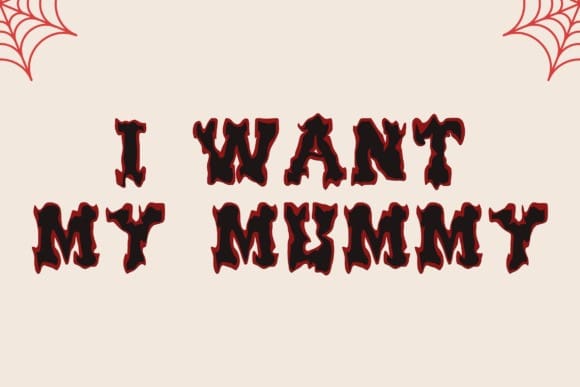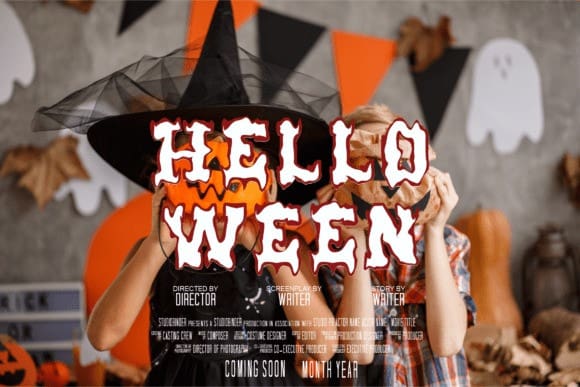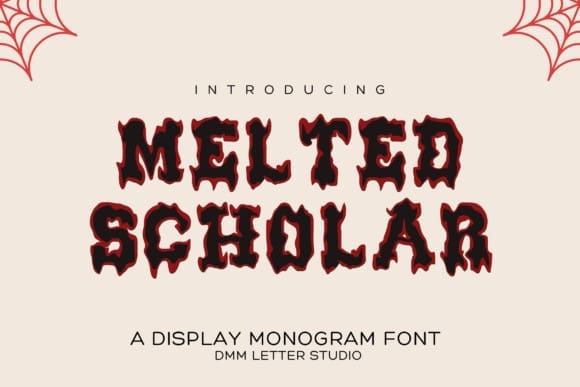
Melted Scholar Font
Melted Scholar Font is a bold and unique drip varsity font that blends the strong structure of collegiate lettering with a playful, melty twist. This one-of-a-kind typeface is made for designers who want to break the mold of traditional varsity fonts and inject some spooky, rebellious character into their projects. Whether you’re creating Halloween-themed apparel, edgy sports graphics, or eye-catching merch, Melted Scholar brings a perfect balance of school pride and grungy style.
With its dripping ink effects and powerful athletic form, Melted Scholar is ideal for everything from haunted house flyers to YouTube horror thumbnails, sticker packs, and even street-style branding. It takes the classic varsity lettering you know—blocky, bold, and confident—and melts it into something far more expressive and creative. It’s spooky, but it’s also fun. Creepy, but still clean enough to use in commercial designs.
The all-caps format ensures a uniform visual impact, while the dripping edges give every letter an unpredictable texture that feels handmade. Each glyph is designed to be both legible and wild, making it suitable for headlines, short quotes, and decorative applications. Use it solo or pair it with script fonts for cool, high-contrast layouts.